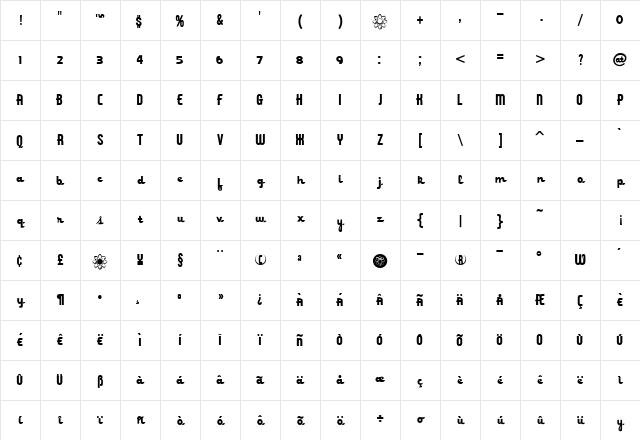
ZavTone Medium Free Font
ZavTone Medium
Foundry: Gofont
Design Context for ZavTone
ZavTone is a composed and adaptable typeface that performs quietly and consistently across a wide range of design contexts.